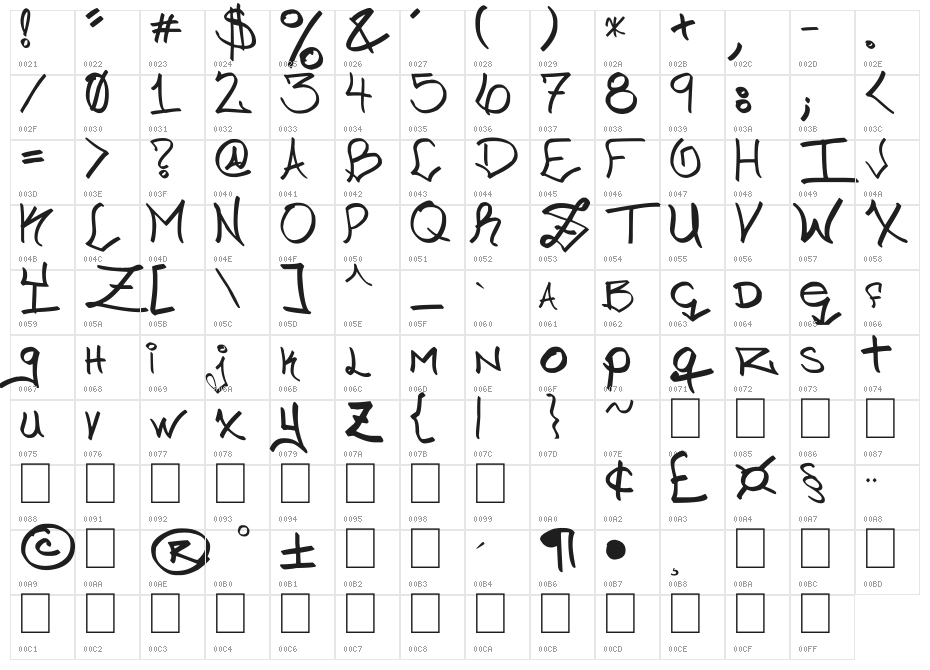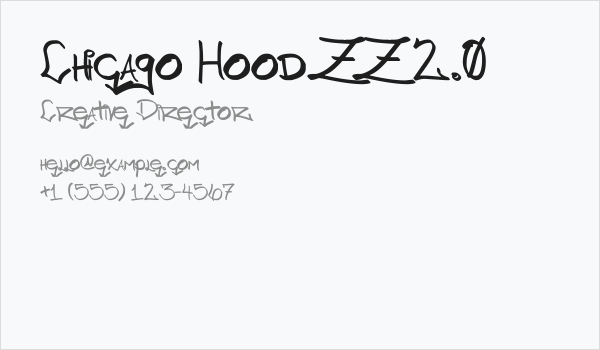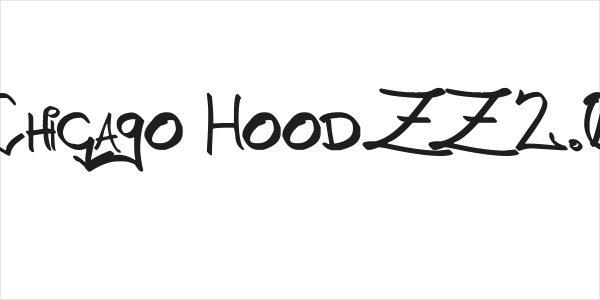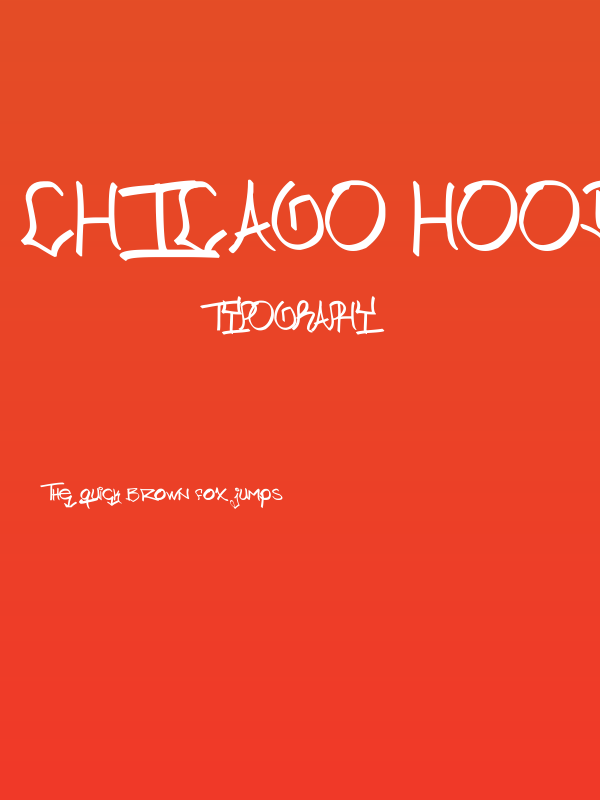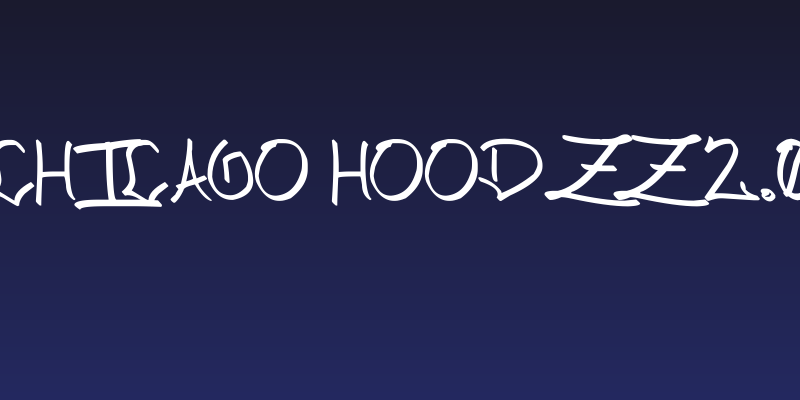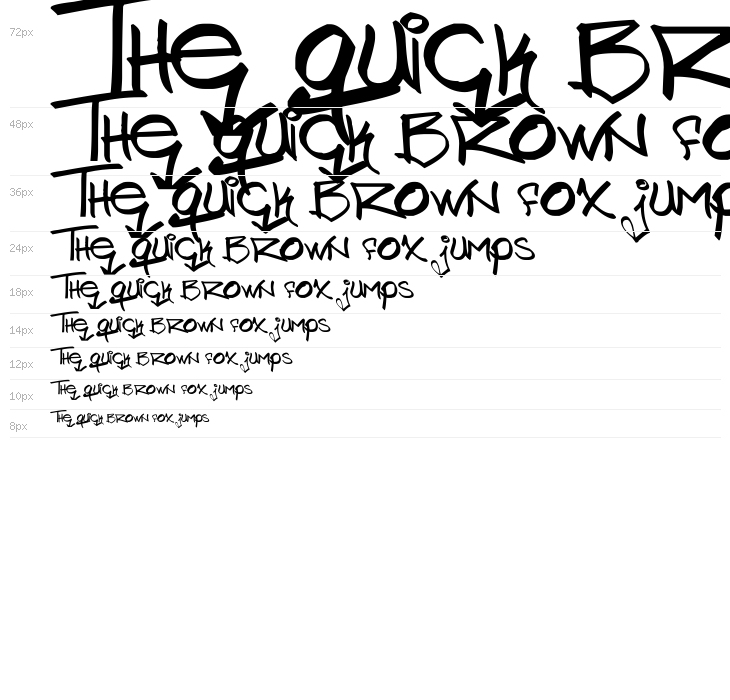
Chicago HoodZZ 2.0 Font
Chicago HoodZZ 2.0 Description
This font embodies a bold and expressive graffiti style, characterized by its dynamic and energetic strokes. The uppercase and lowercase letters are designed with a playful and rebellious flair, featuring exaggerated curves and sharp angles that mimic the look of street art. The numbers and special characters maintain this edgy aesthetic, adding to the overall urban feel. The font's irregular shapes and varying line thicknesses create a sense of movement and spontaneity, making it ideal for projects that aim to capture a youthful and unconventional vibe.
| Overall Style | Urban, Graffiti, Edgy |
| Use Case | Logos, Posters, Album covers |
| Proposed Projects | Perfect for street art designs, urban-themed posters, music album covers, and edgy branding projects. |